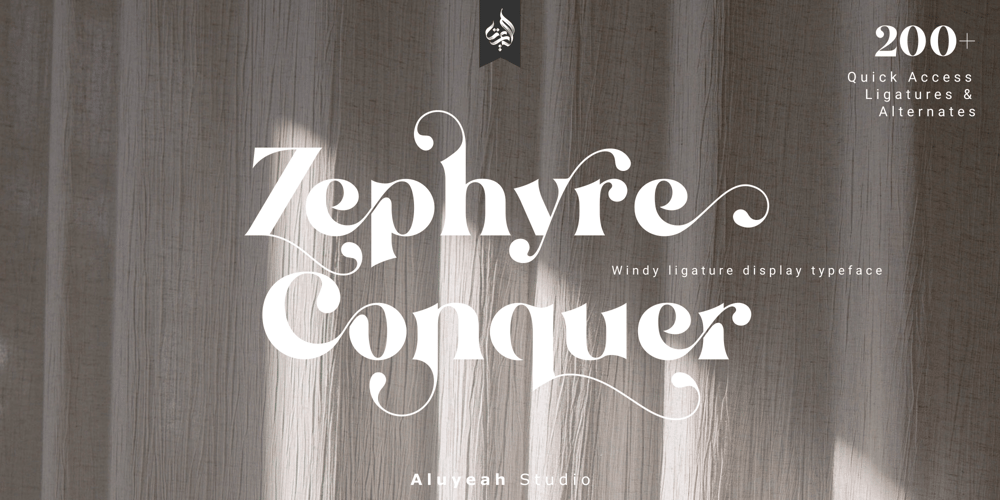
Al Zephyre Conquer Font Family was designed by Linggar Sundoro and published by Aluyeah Studio. Al Zephyre Conquer contains 1 styles and family package options. Hello Aluyeaholics!Unveiling the Zephyre Conquer, a luxurious windy ligature display typeface, which masterfully blends the mysterious allure of the zephyr with the beauty and grace. It’s a unique amalgamation of mindful design and desire that creates an inexplicably elegant aesthetic. Conquer and capture attention whilst adding a dash of elegance to your projects with Zephyre Conquer.Indulge in an opulent collection of more than 200+ quick-access ligatures and alternatives with Zephyre Conquer. It presents everyone the luxury to summon deeper creativity and mold their artistry with grace.